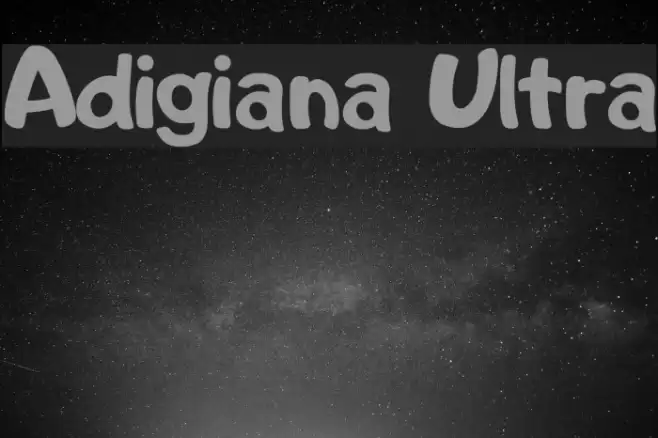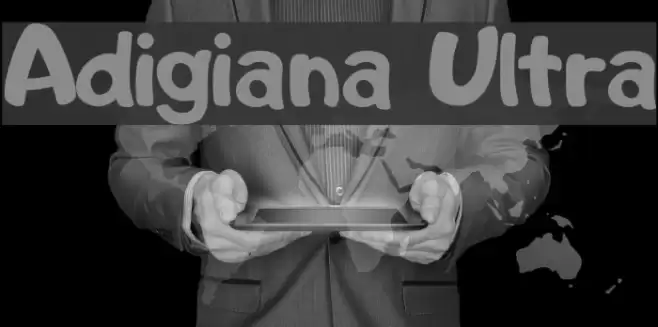
Adigiana Ultra Font
Adigiana Ultra Description
This playful and bold font features rounded, thick strokes that give it a friendly and approachable appearance. The characters are slightly irregular, adding a whimsical touch to the overall design. The uppercase and lowercase letters maintain a consistent style, with a noticeable emphasis on curves and rounded edges. The numbers and special characters follow the same design principles, ensuring uniformity across all glyphs. This font's unique style makes it suitable for projects that require a fun and informal tone.
A playful, bold font with rounded, thick strokes and a whimsical style from Uncategorized fonts.
- Proposed Projects: Ideal for children's books, playful branding, casual invitations, and creative posters.
- Overall Style: Playful, Whimsical